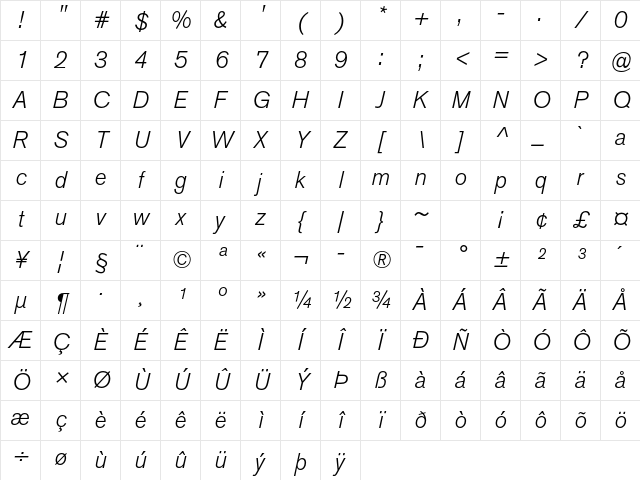
Akzidenz-Grotesk Std Light Italic
Foundry: Berthold
Designer: Various Berthold designers including Guenter Gerhard Lange
Design Context for Akzidenz-Grotesk Std
Akzidenz-Grotesk Std takes a clean, functional approach - its unadorned letterforms prioritise legibility and work reliably across screen and print environments. The slanted form adds forward momentum and visual energy. Its slender proportions lend an understated elegance to any composition.
Font Pairing: Pair Akzidenz-Grotesk Std with a medium or bold serif for headlines - the weight contrast creates an elegant, high-end feel.
Pro Tip: Use Akzidenz-Grotesk Std with generous tracking and line-height for the most luxurious effect - light sans-serifs reward spacious, considered layouts.
Who designed the Akzidenz-Grotesk Std Light Italic font?